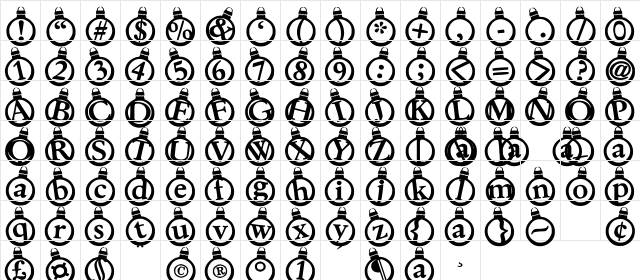
KerstKaarten Regular
Design Context for KerstKaarten
KerstKaarten is a composed and adaptable typeface that performs quietly and consistently across a wide range of design contexts.
Pro Tip: Use KerstKaarten in both headline and body roles to test its range before committing to a single application.